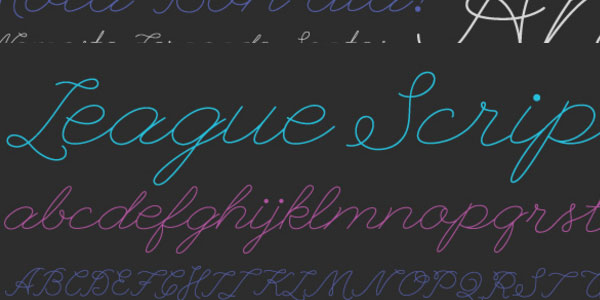
25 Stylish Cursive Fonts
Showcasing handpicked elegant cursive fonts that you can use to give a more personalized approach to any project. So start learning the strokes with these cursive fonts.